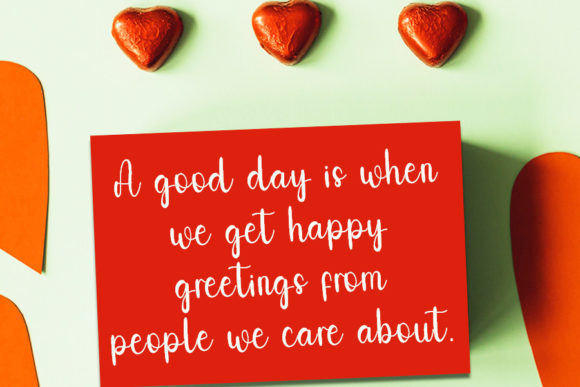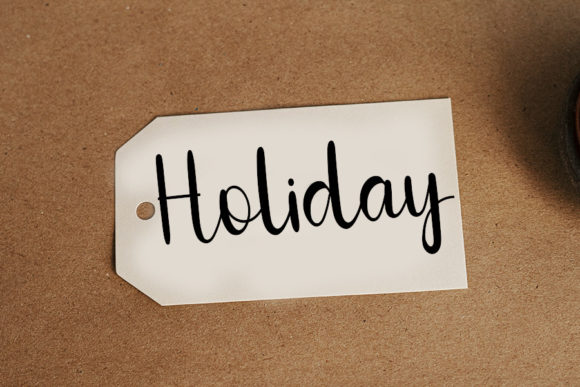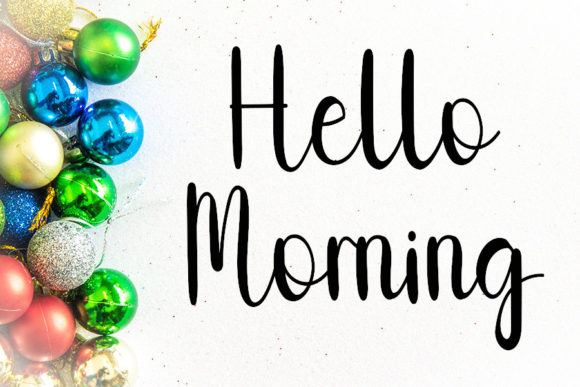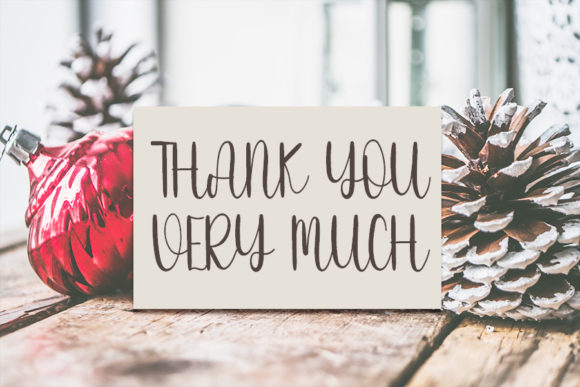
The Perfect Font for Your Special Day
Have you ever been brainstorming ideas for a friend’s birthday card, only to find yourself stuck on the perfect font to convey the excitement and joy of the occasion? You’re not alone! As designers, we know that the right font can make all the difference in bringing a project to life.
That’s where the Birthday Font comes in – a simple and cute handwritten font designed to add a touch of personality to your projects. With its balanced and varied strokes, this font is perfect for creating invitations, greeting cards, and other celebratory designs. Whether you’re a seasoned designer or just starting out, the Birthday Font is a valuable addition to your toolkit, offering endless possibilities for creativity and self-expression.
Birthday Font Key Features
- Unique Characteristics: The Birthday Font features a playful, cursive design with decorative flourishes, making it perfect for adding a celebratory touch to party invitations, greeting cards, and other festive materials.
Birthday Font Review
I’ve had the chance to work with the Birthday Font, and I must say it’s a unique choice for celebrating special occasions. Here are my thoughts:
- Expressive and playful: The Birthday Font does a great job of capturing the excitement and joy of birthdays. Its expressive letters and swashes make it perfect for creating eye-catching party invitations, social media posts, or gift cards.
- Customizable: This font offers a range of styles and customization options, allowing designers to tailor it to their specific needs and brand identity.
- Fun and creative: The Birthday Font is ideal for designers looking to add a bit of whimsy and personality to their projects.
- Limited versatility: While the Birthday Font excels at conveying a party atmosphere, it may not be the best choice for more formal or professional projects.
- Not suitable for small text: The font’s playful nature and large letterforms make it less suitable for small text or body copy.
Overall, the Birthday Font is a great choice for designers looking to add a touch of fun and personality to their projects. While it may not be suitable for every occasion, its expressive and customizable nature make it a valuable addition to any designer’s toolkit.